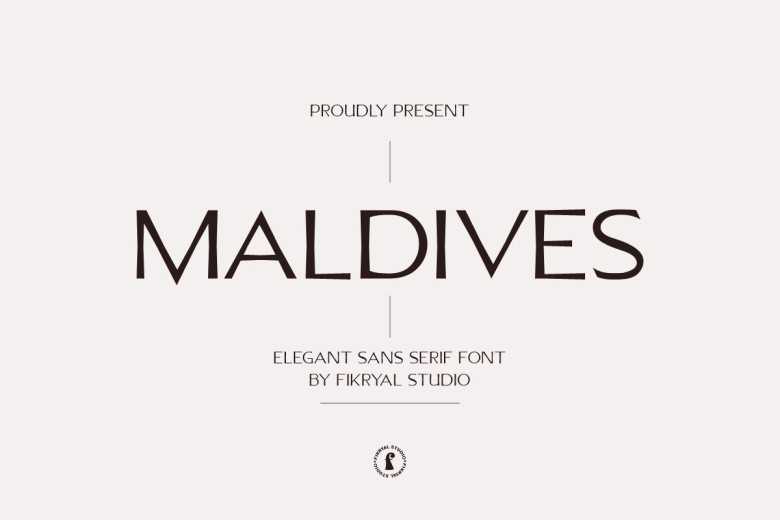
Maldives Font
Maldives is the epitome of luxury and elegant impression in typography, boasting its grace that is captivating yet confident – particularly when displayed all caps. Each letter carefully designed to convey an impactful yet unassuming message in each presentation; Maldives effortlessly marries sophistication with simplicity for an exquisite visual harmony.
This font has been meticulously designed, boasting both aesthetic appeal and legibility at all sizes. With its upright, clean writing style and beautiful characters, this font makes an excellent choice for logo creation, magazine titles, promotional materials and branding elements.
All-caps designs will make your designs truly exceptional, conveying strength, tranquility, and resolve.
Maldives Sans Serif Font